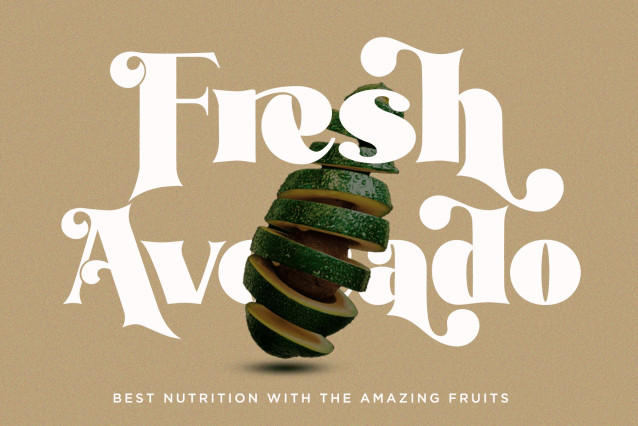
Jingle Bell Font
Jingle Bell Font – Avocado Sunday Font is the Serif display typeface with combine uppercase and lowercase looks and feel nice balanced. Provide with alternates and ligatures font in variant style make the design letter looks nice. Honestly it works perfectly for headlines, logos, posters, packaging, T-shirts and much more.